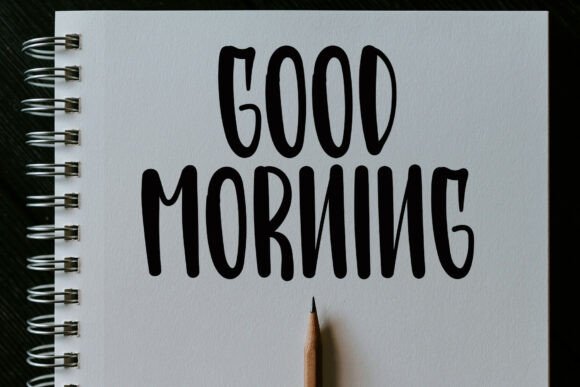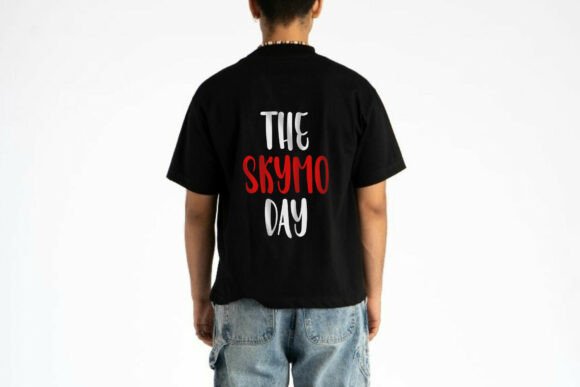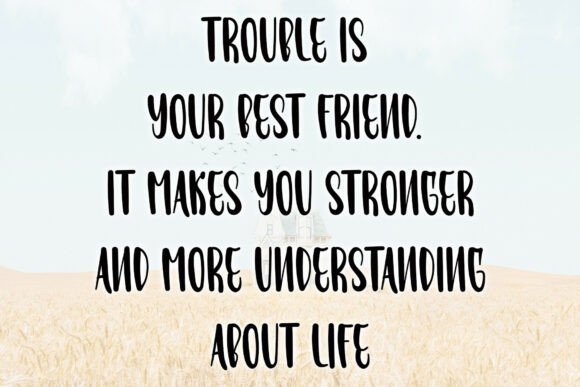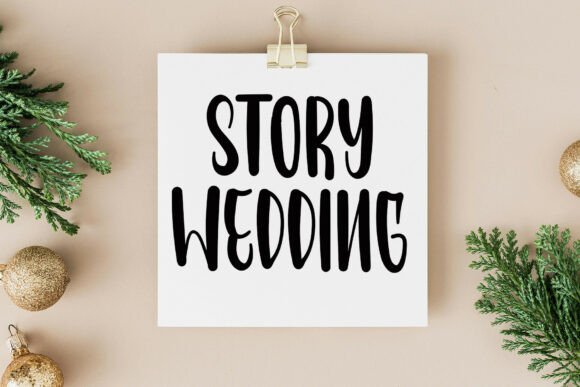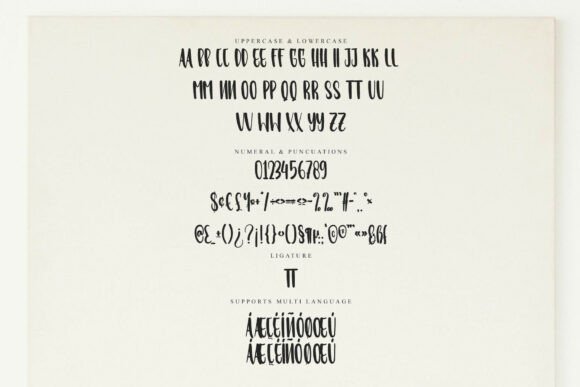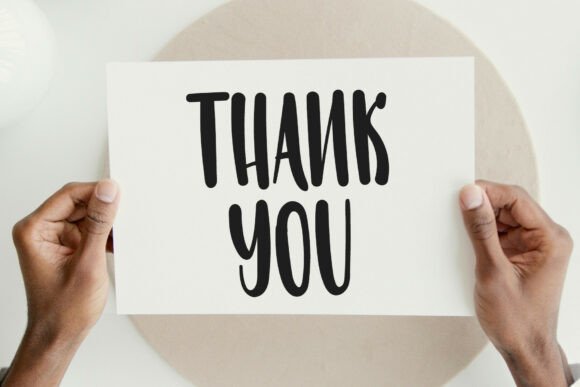
Biscuit Alphabet Font: Elevate Your Designs with Elegance and Strength
In the realm of typography, few fonts manage to strike a balance between strength and elegance. Biscuit Alphabet Font is one such captivating display font that has garnered attention for its unique blend of boldness and sophistication. This enchanting font is perfect for designers and crafters looking to add a touch of mystery and wonder to their projects. In this article, we’ll delve into the world of Biscuit Alphabet Font, exploring its features, uses, and the magic it brings to the table.
The Essence of Biscuit Alphabet Font
Biscuit Alphabet Font stands out with its distinctive letterforms that exude both strength and elegance. This captivating display font is designed to make a statement, making it ideal for bold and eye-catching designs. The unique character of Biscuit Alphabet lies in its ability to convey a sense of mystery and sophistication, adding a touch of wonder to any project it is used in.
One of the key features of Biscuit Alphabet Font is its versatility. Whether you’re aiming for a mystical, modern, or elegant look, this font adapts seamlessly to various design needs. Its flexibility makes it a go-to choice for designers who want to experiment with different styles and themes without compromising on the quality and impact of their designs.
Biscuit Alphabet Font is not limited to a specific type of design project. Its wide range of applications makes it a valuable asset for designers and crafters across different industries. Here are some of the areas where Biscuit Alphabet truly shines:
- Branding and Logos: Create memorable and impactful logos that stand out with Biscuit Alphabet’s unique and bold letterforms.
- Advertising and Marketing: Elevate your advertising campaigns with a font that grabs attention and leaves a lasting impression.
- Packaging: Add a touch of elegance and sophistication to your product packaging, making it more appealing to potential customers.
- Web Design: Enhance your website’s visual appeal with Biscuit Alphabet Font, creating a cohesive and engaging user experience.
- Stationery and Invitations: Add a touch of whimsy and charm to your stationery, invitations, and greeting cards with this captivating font.
Why Choose Biscuit Alphabet Font?
Choosing Biscuit Alphabet Font for your design projects comes with numerous benefits. Here are some reasons why designers and crafters are gravitating towards this enchanting font:
- Unique and Distinctive: Stand out from the crowd with a font that is both unique and memorable.
- Elegance and Strength: Achieve the perfect balance of elegance and strength, adding depth to your designs.
- Easy to Read: Despite its bold and captivating nature, Biscuit Alphabet Font remains easy to read, ensuring your message is conveyed effectively.
- Highly Versatile: Experiment with different design styles and themes without compromising on quality.
Tips for Using Biscuit Alphabet Font
To get the most out of Biscuit Alphabet Font, consider the following tips:
- Pair with Complementary Fonts: Combine Biscuit Alphabet with simpler fonts to create a balanced and harmonious design.
- Experiment with Colors: Play around with different colors to find the perfect match that enhances the font’s unique characteristics.
- Use for Headings and Titles: Utilize Biscuit Alphabet Font for headings and titles to create a bold and eye-catching effect.
Biscuit Alphabet Font is a captivating display font that brings a perfect blend of strength and elegance to the table. Its unique letterforms, versatility, and wide range of applications make it an excellent choice for designers and crafters looking to elevate their designs. Whether you’re aiming for a mystical, modern, or elegant look, Biscuit Alphabet Font is sure to enchant and inspire. Add a touch of wonder and sophistication to your projects with this magical font and watch your designs come to life.